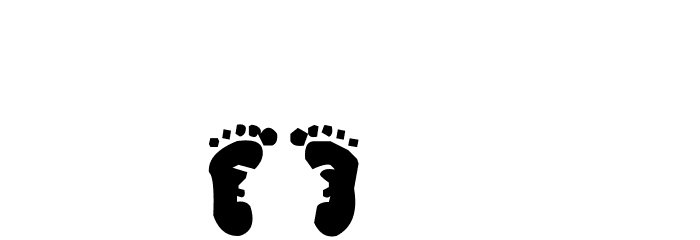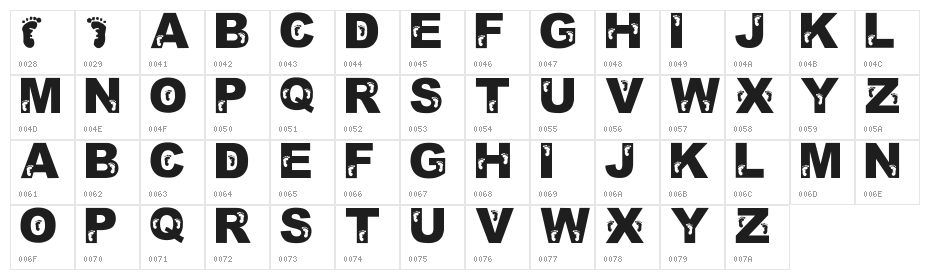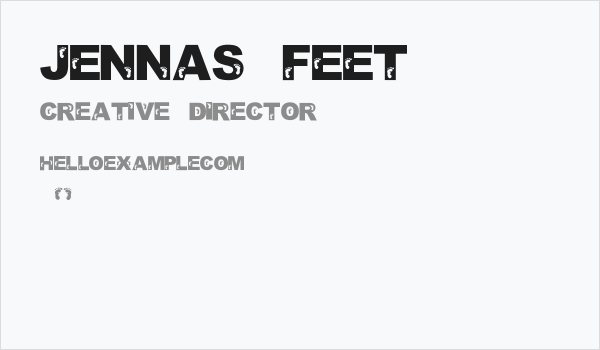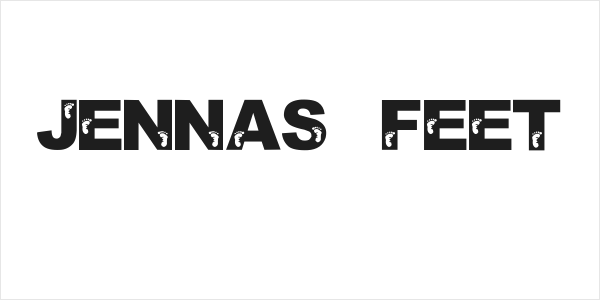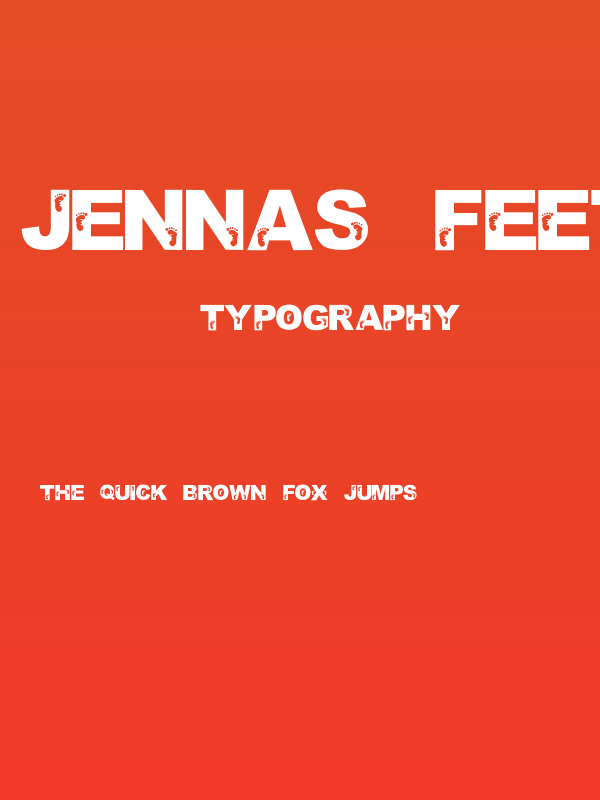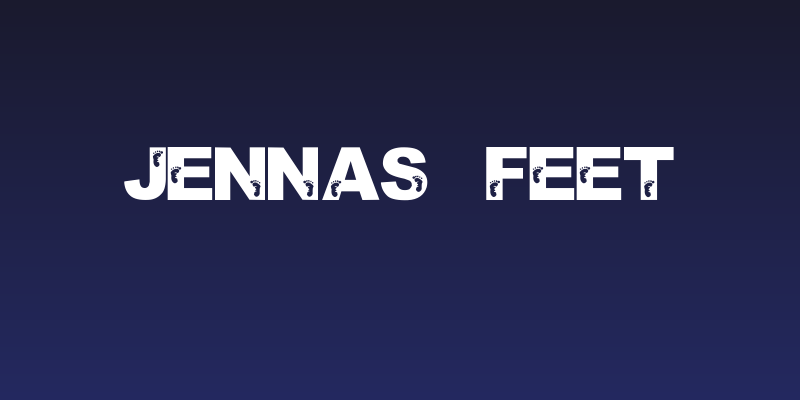
Jenna's Feet Font
Jenna's Feet Description
This font features bold, uppercase letters with a playful and unique design element: each letter incorporates small, stylized footprints. The footprints add a whimsical and decorative touch, making the font stand out. The overall appearance is bold and eye-catching, suitable for projects that require a fun and creative aesthetic. The letters are evenly spaced, ensuring readability while maintaining the decorative aspect. This font is ideal for children's projects, playful branding, or any design that seeks to convey a sense of fun and creativity.
| Overall Style | Playful, Creative |
| Proposed Projects | Ideal for children's books, playful branding, event posters, or any design needing a fun and creative touch. |